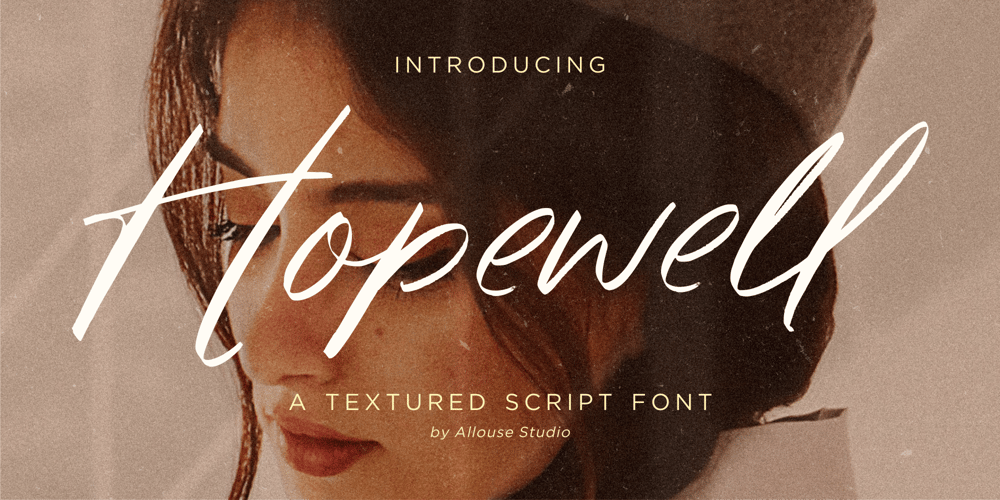
Hopewell Font Family was designed by Fachrizal Yusuf and published by Allouse Studio. Hopewell contains 1 styles and family package options. Proudly Presenting, Hopewell A Brush Script Font.Hopewell is perfect for any titles, logo, product packaging, branding project, megazine, social media, wedding, or just used to express words above the background.Hopewell also come with Multi-Lingual Support.Enjoy the font, feel free to comment or feedback, send me PM or email. Thank You!